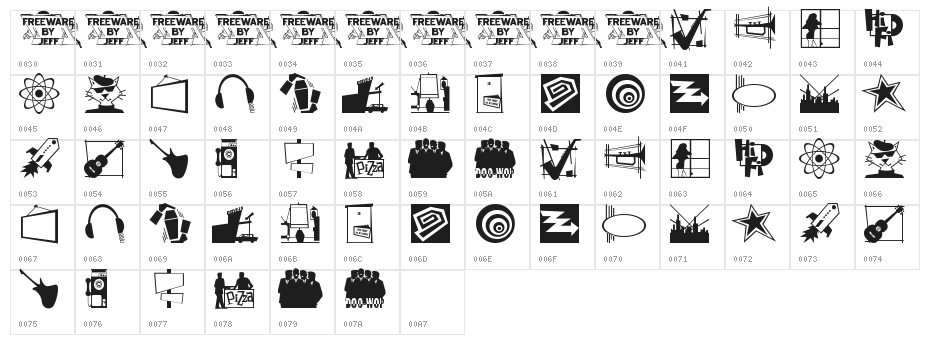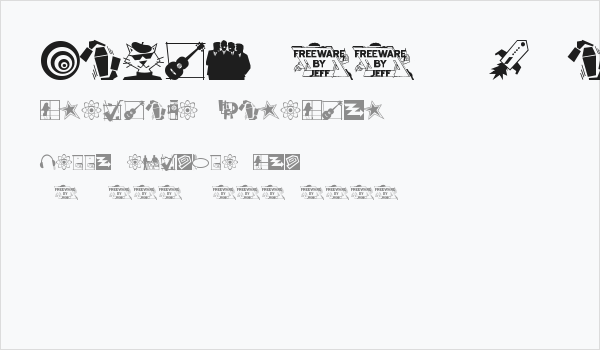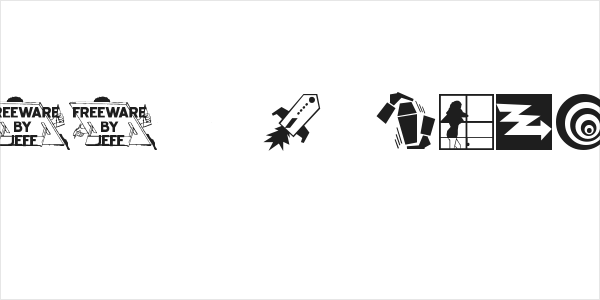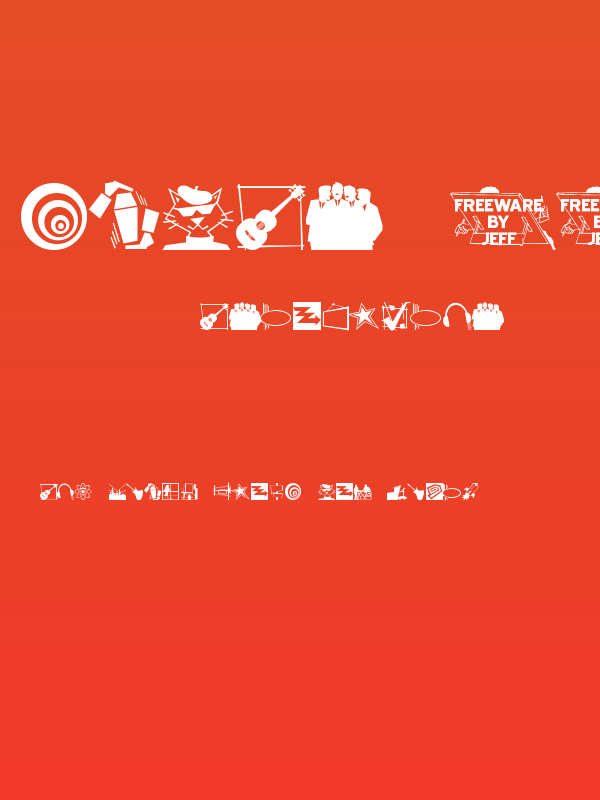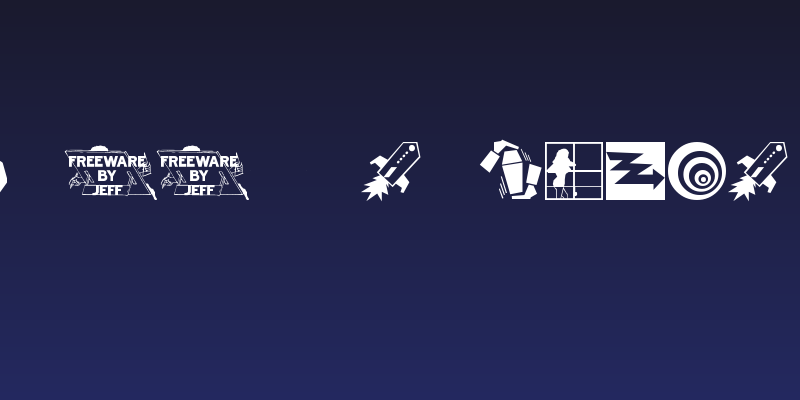
Nifty 50's Icons 1 JL Font
Nifty 50's Icons 1 JL Description
A decorative icon set inspired by 1950s American pop culture, featuring bold, high-contrast black-and-white illustrations such as jukeboxes, guitars, stars, diners, and other retro motifs. The icons are playful, detailed, and highly stylized, evoking a sense of nostalgia and fun.
| Overall Style | Decorative, Vintage, Playful |
| Use Case | Logos, Posters, Themed Graphics, Invitations |
| Proposed Projects | Vintage posters, themed party invitations, retro branding, educational materials, scrapbooking, and digital stickers. |